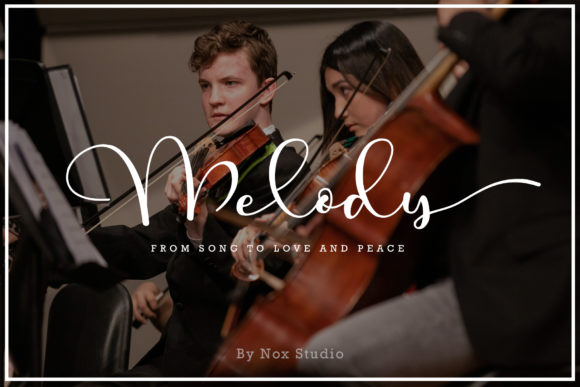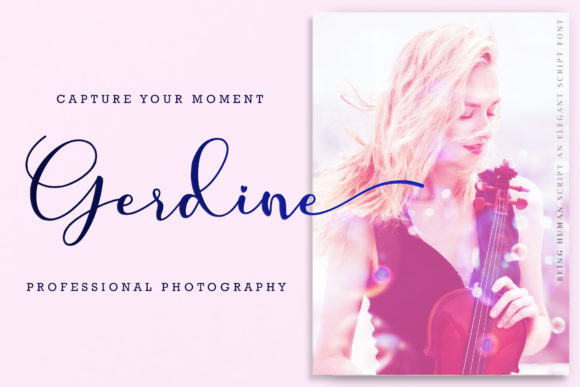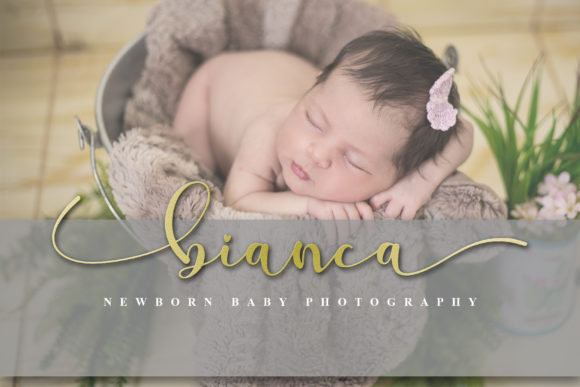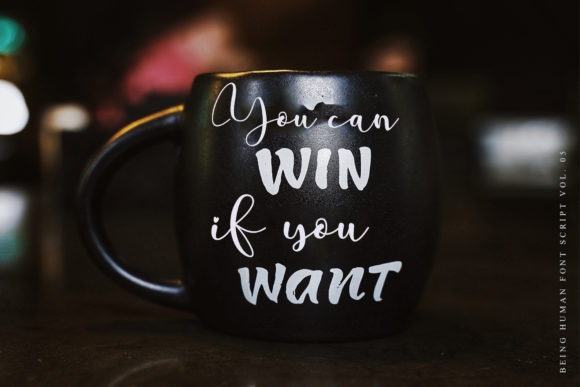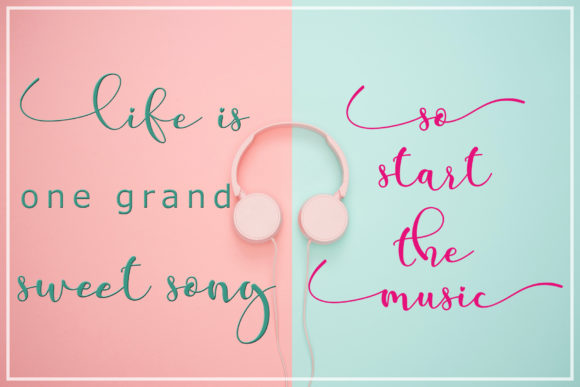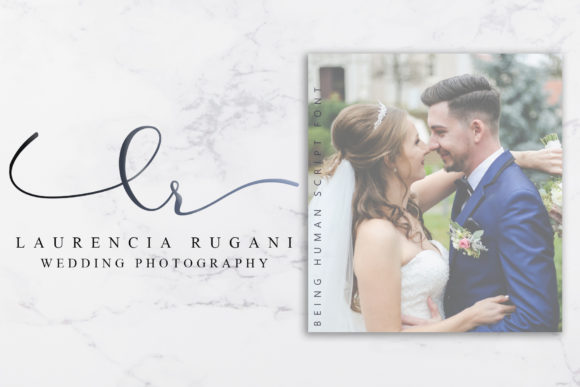
Being Human Font: Elevate Your Designs with this Dazzling Script Font
As a designer or crafter, you’re constantly on the lookout for the perfect font to elevate your creations. Look no further than Being Human, a stunning script font that’s sure to become a valuable asset in your font library. With its elegant and fluid design, Being Human is perfect for a wide range of projects, from wedding invitations and branding materials to social media graphics and more.
The Versatility of Being Human Font
One of the standout features of Being Human is its incredible versatility. No matter the topic or theme of your project, this font is sure to complement it beautifully. Whether you’re creating a sophisticated and luxurious look or a more playful and whimsical design, Being Human’s flowing script lines and elegant swashes will add a touch of class and sophistication.
Being Human font is PUA (Private Use Area) encoded, which means that you can access all of the glyphs and swashes with ease. This encoding allows you to unlock the full potential of the font, giving you access to a wide range of characters, ligatures, and swashes that can be used to add unique touches to your designs.
Why Choose Being Human Font?
So why choose Being Human font for your next project? Here are just a few reasons why this font stands out from the crowd:
• Elegant and sophisticated design: Being Human’s script lines are smooth and flowing, giving your designs a luxurious and high-end feel.
• Versatile and adaptable: This font is perfect for a wide range of projects, from formal and professional to playful and creative.
• PUA encoded for easy access: With PUA encoding, you can easily access all of the glyphs and swashes, making it simple to add unique touches to your designs.
• High-quality and legible: Being Human font is designed to be clear and legible, even at small sizes, making it perfect for use in a variety of applications.
How to Use Being Human Font in Your Designs
• Pair it with a sans-serif font: Being Human pairs beautifully with sans-serif fonts, creating a striking contrast that’s perfect for headings and body text.
• Use it for headings and titles: The elegant script lines of Being Human make it perfect for use in headings and titles, adding a touch of sophistication and style to your designs.
• Experiment with swashes and glyphs: With PUA encoding, you can easily access a wide range of swashes and glyphs, allowing you to add unique touches to your designs.
In conclusion, Being Human font is a dazzling script font that’s sure to become a valuable asset in your font library. With its elegant and sophisticated design, versatility, and PUA encoding, this font is perfect for a wide range of projects. Whether you’re a designer, crafter, or DIY enthusiast, Being Human font is a must-have for anyone looking to elevate their designs and add a touch of class and sophistication.